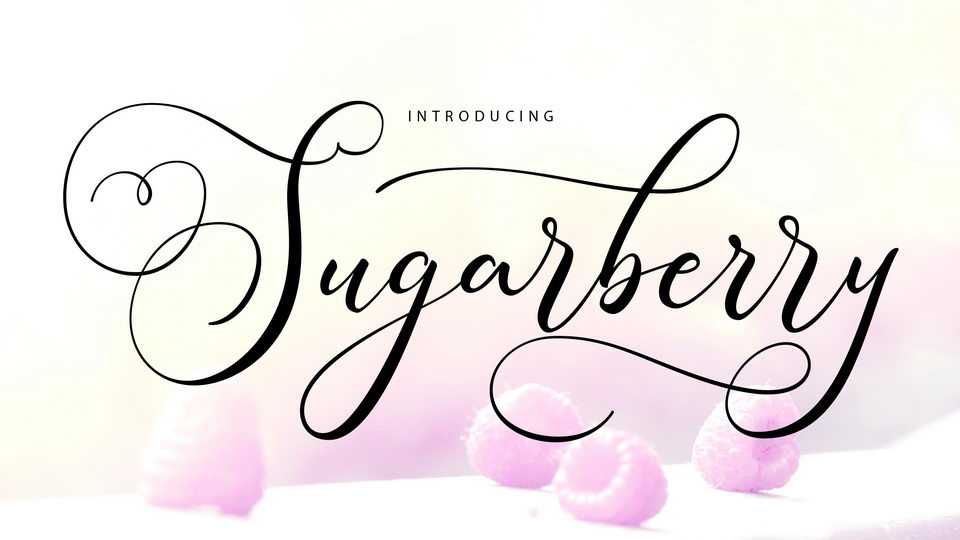
Download Sugarberry font, a beautiful modern calligraphy typeface with a romantic feel. The font is ideal for wedding design, Valentine cards, feminine logos and other lovely projects.
Designer: Vunira Design